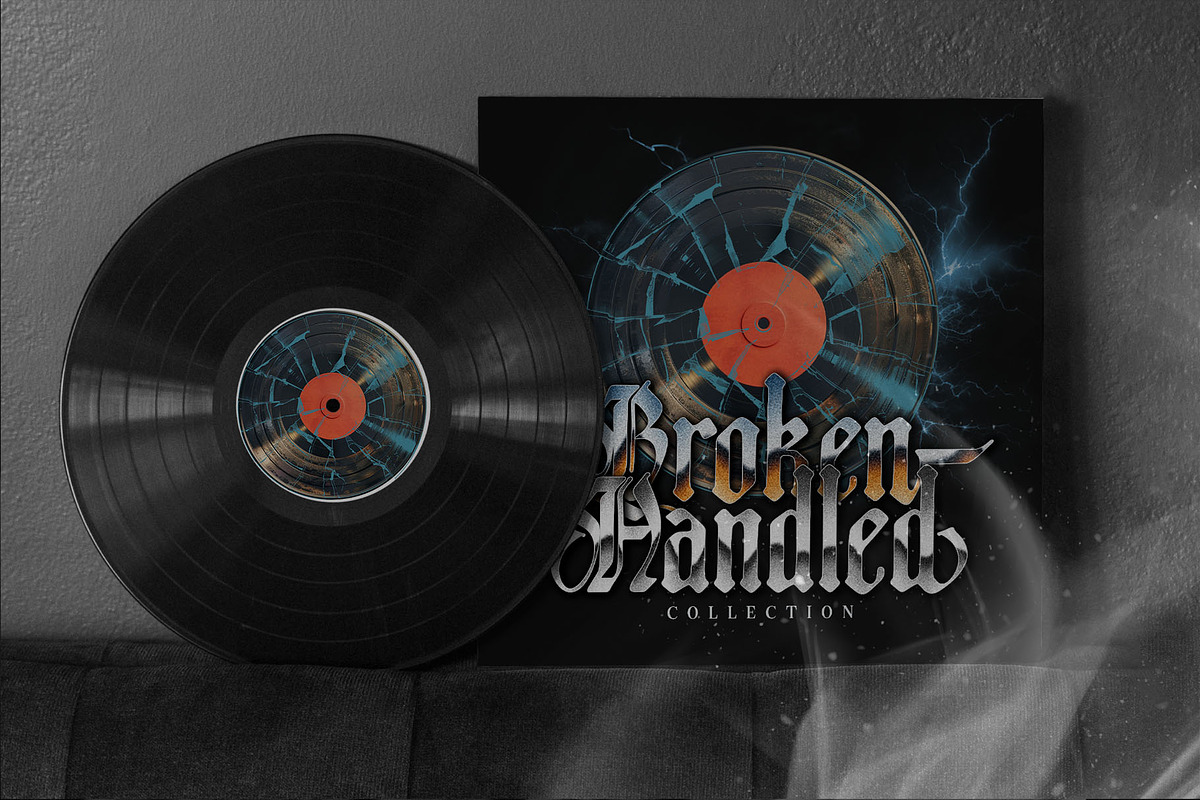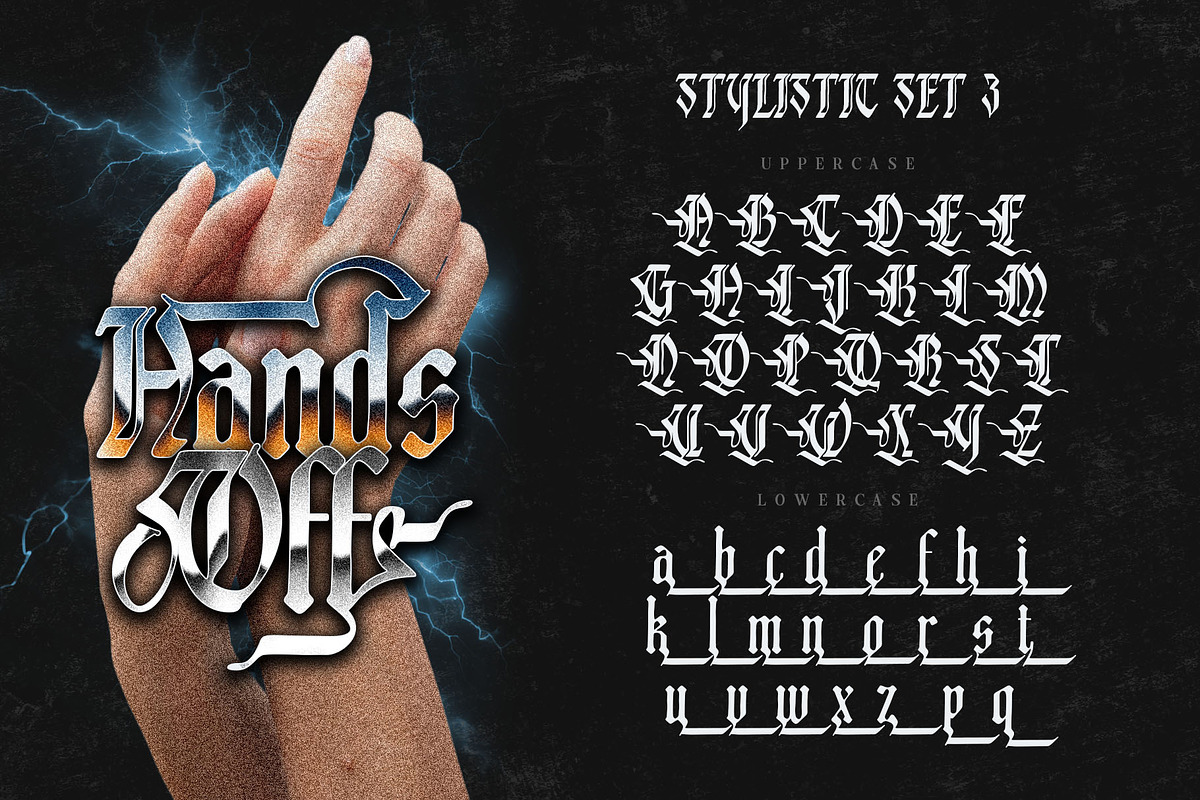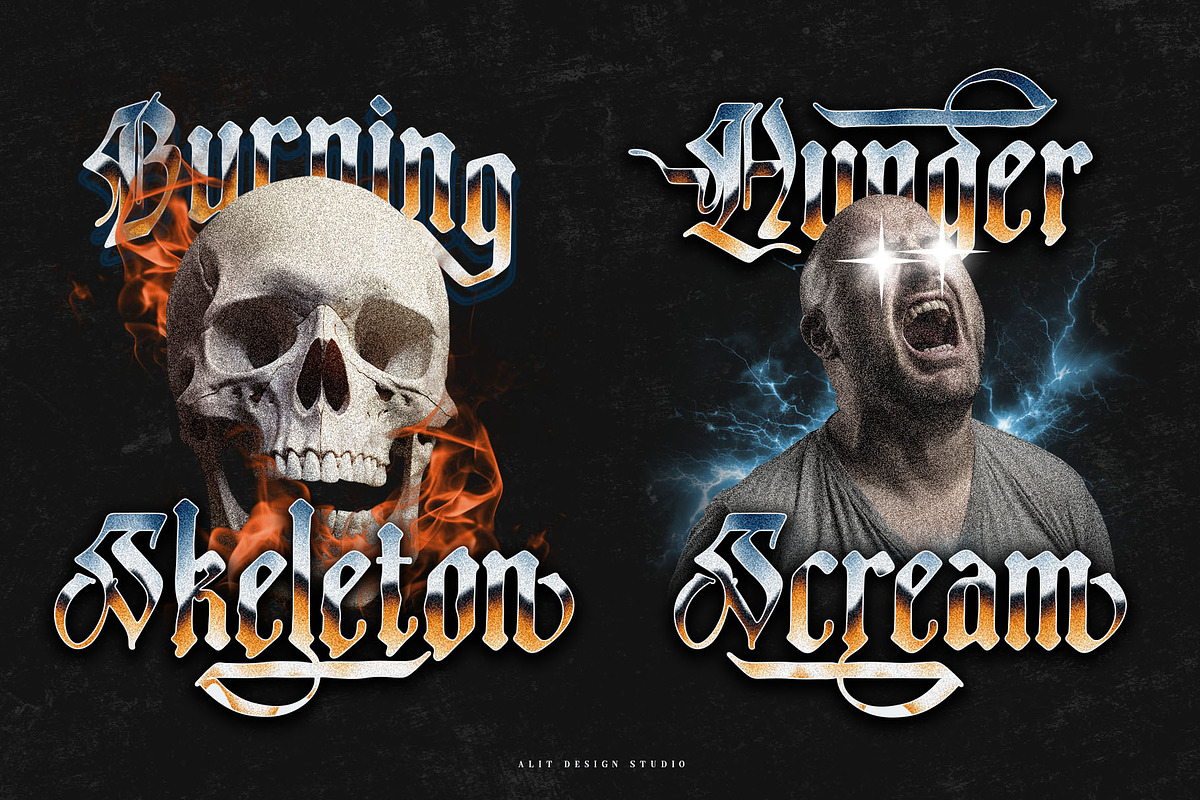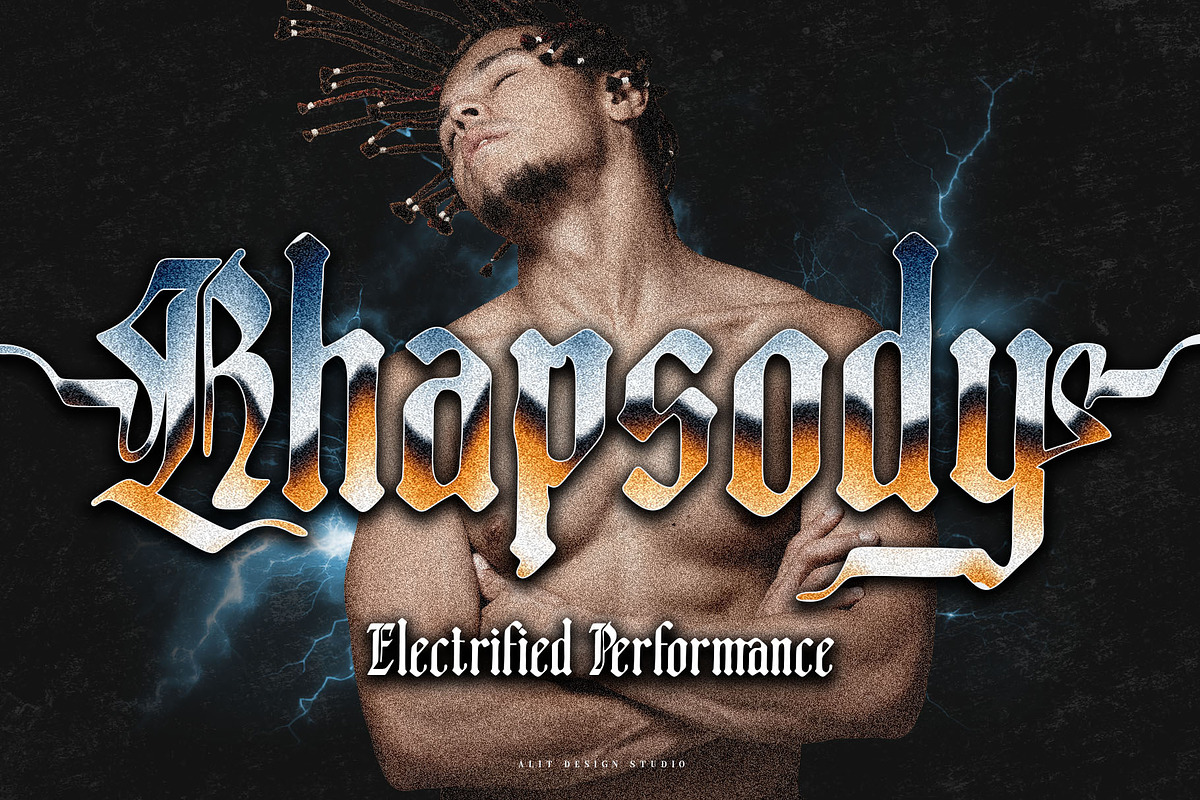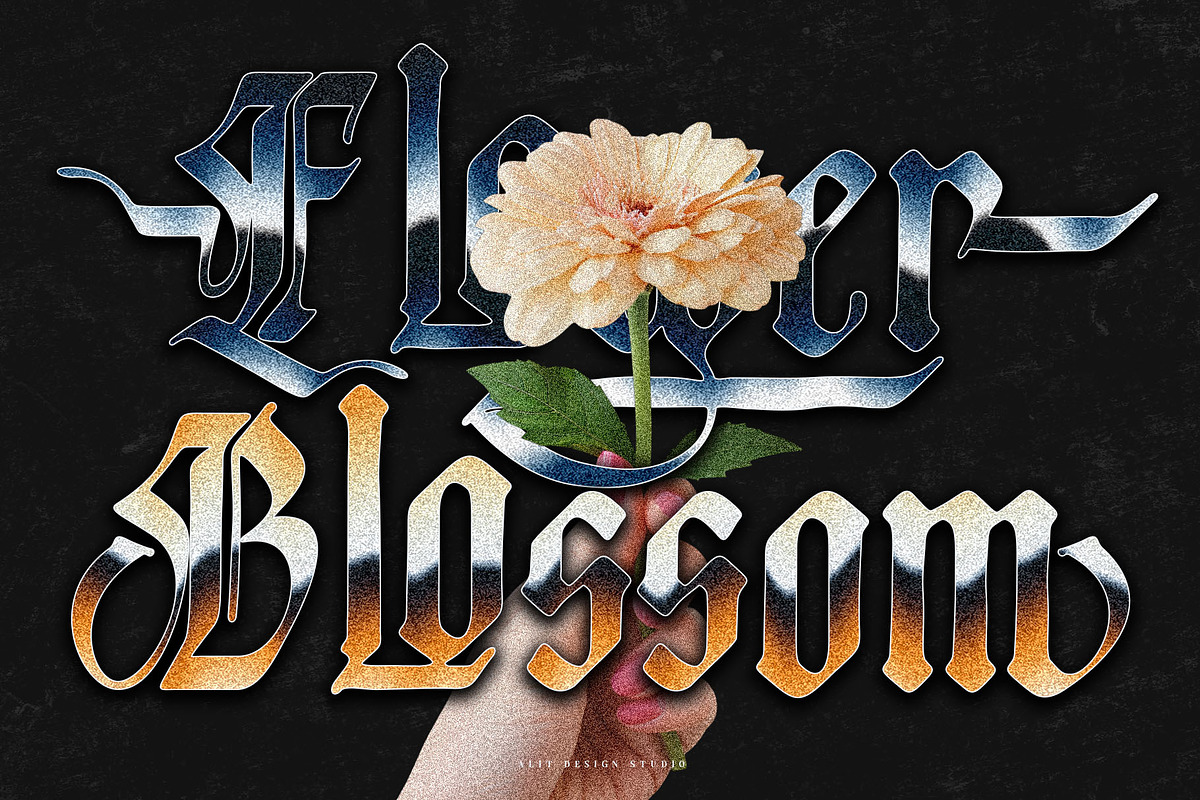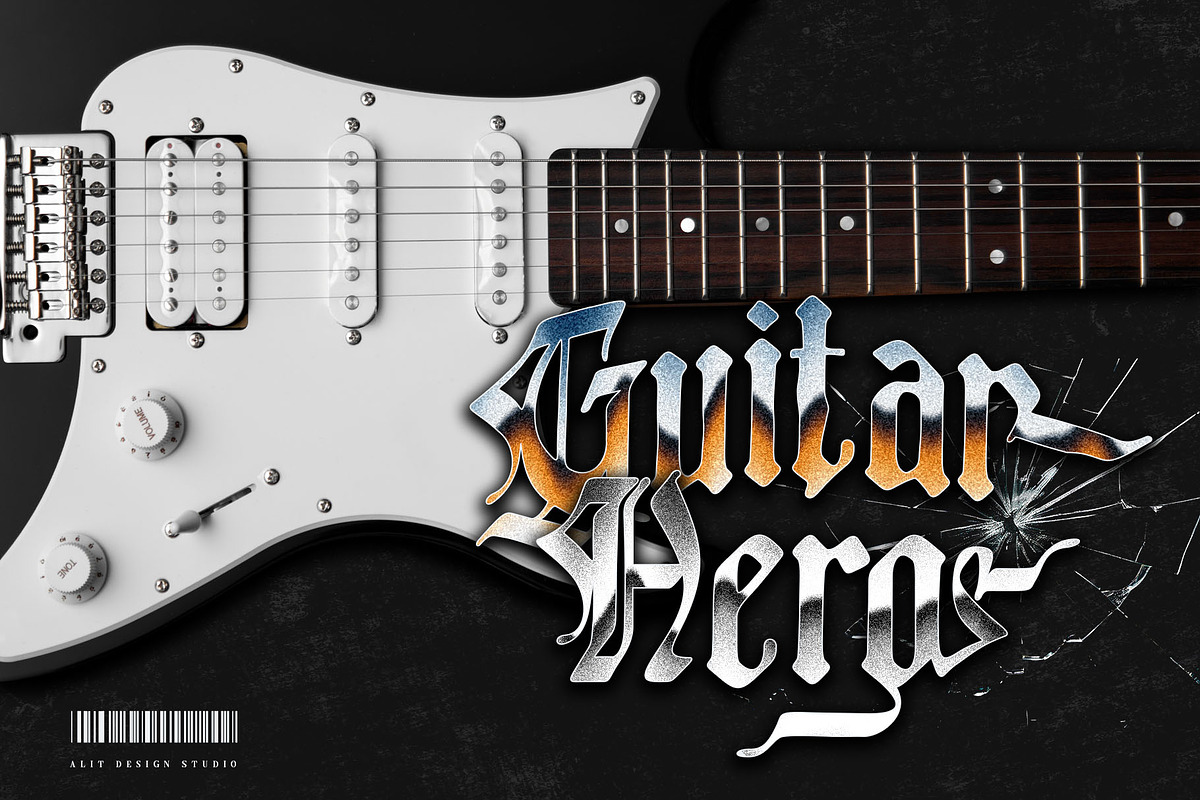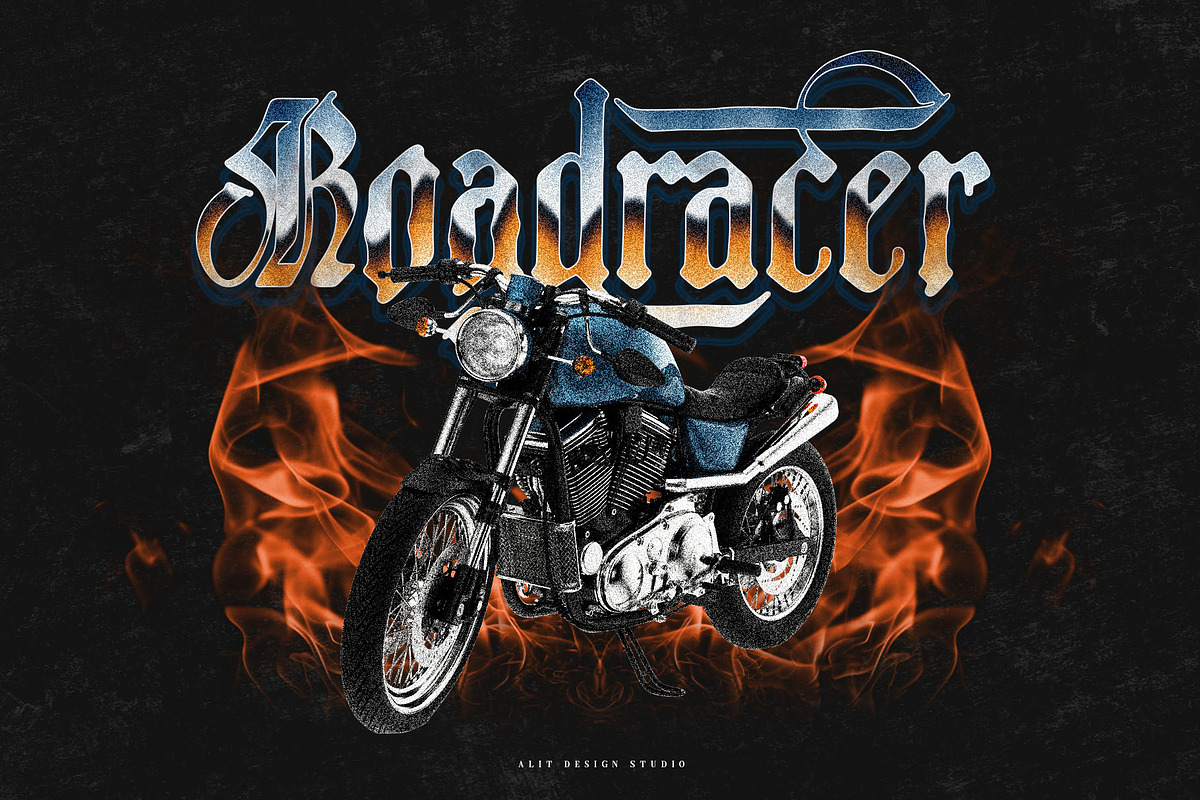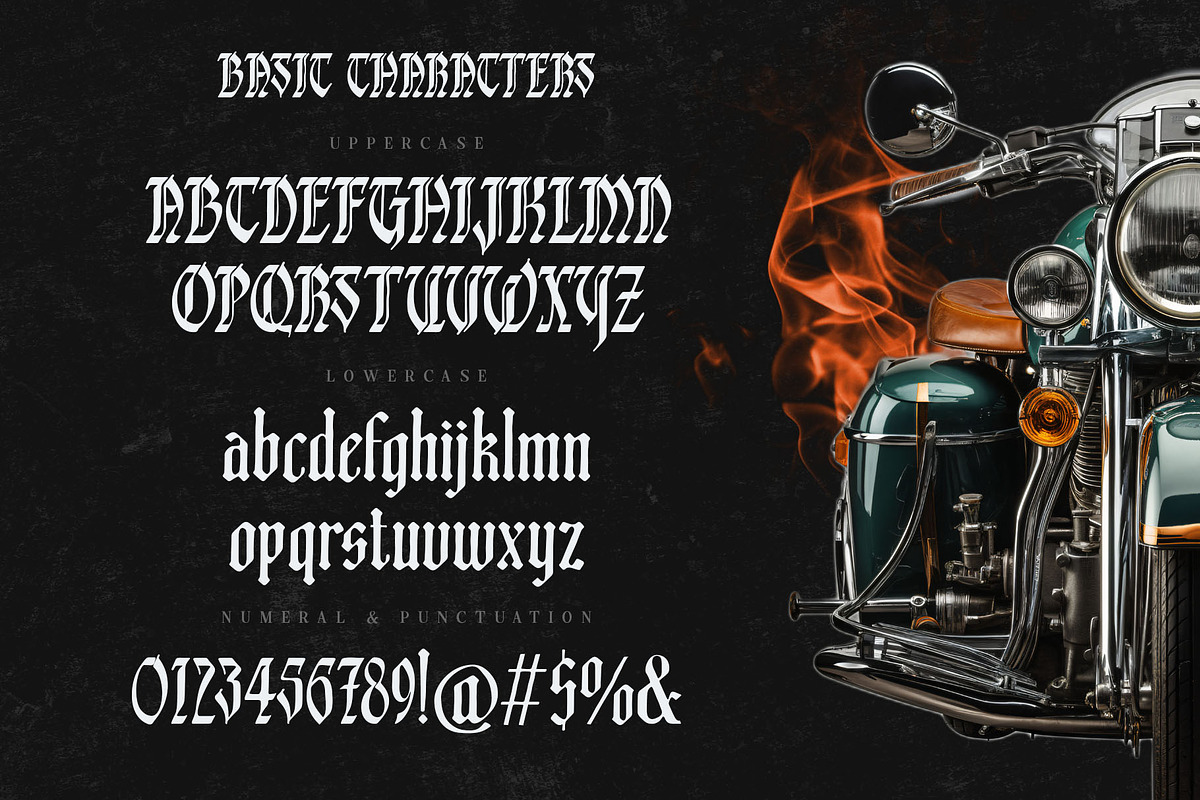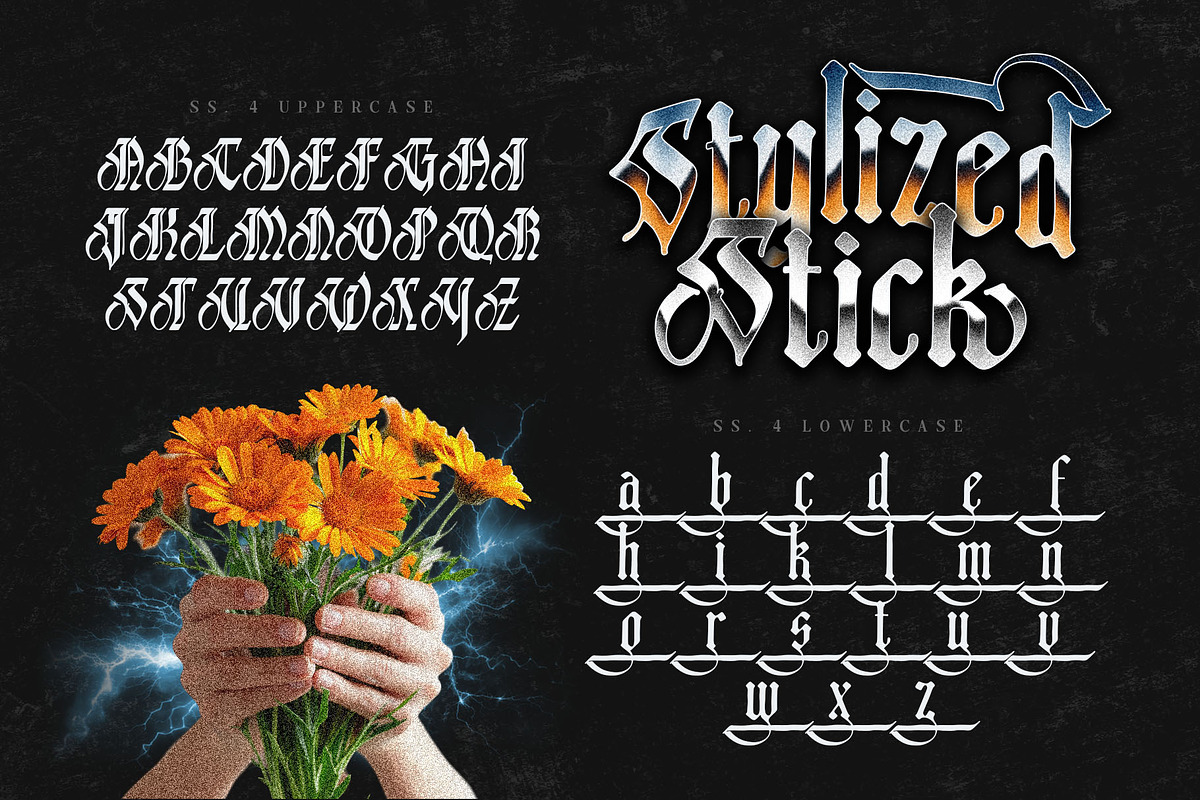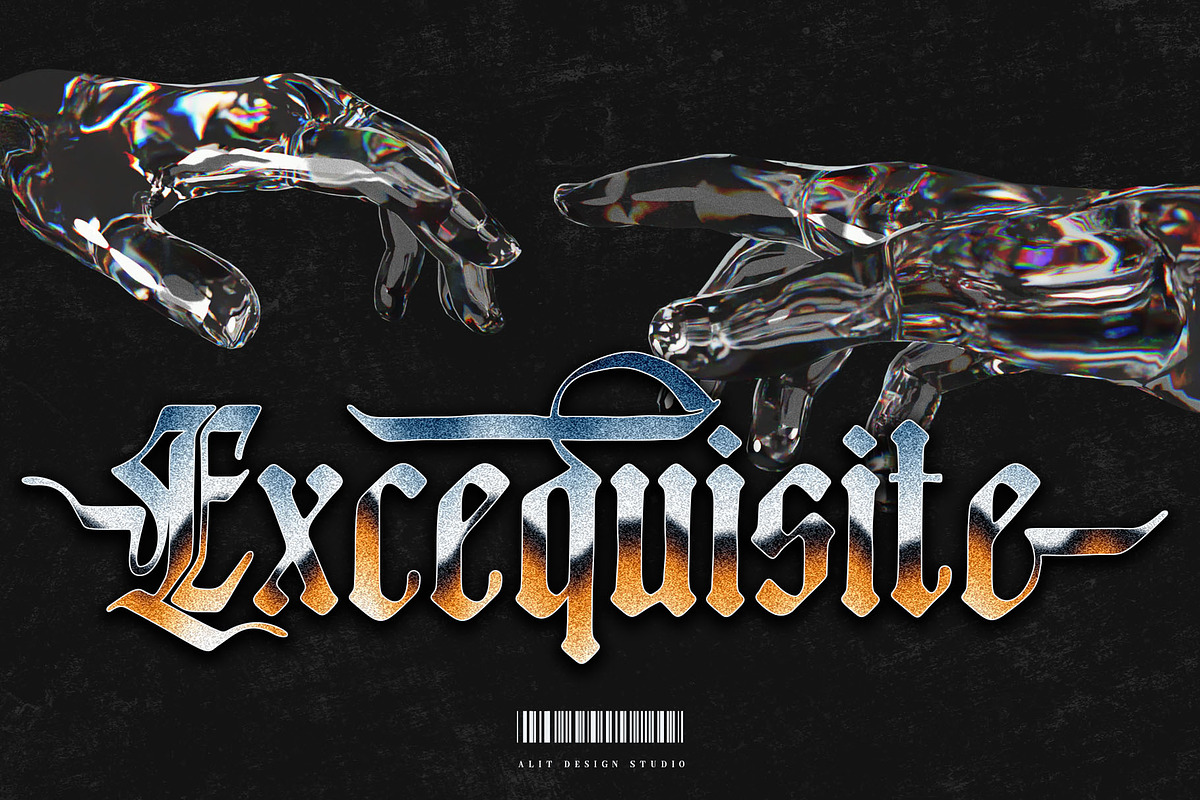
Black Dakota Typeface
Discover the Black Dakota Typeface, a masterful blend of tradition and artistry. Crafted with a nod to vintage aesthetics, this font is a rugged yet refined blackletter that brings an authentic old-world charm to your designs. The rough edges and textured details give Black Dakota a raw, handcrafted feel, perfect for projects that demand a touch of history and depth.
This typeface isn't just about looks—it's packed with functionality. With 811 characters, including a full set of ligatures and an array of elegant swashes, Black Dakota offers unparalleled flexibility and style. Whether you're designing logos, branding materials, posters, or invitations, this font's classic old-style appearance, combined with its rich decorative features, ensures your work will stand out with a timeless, artistic flair.
Embrace the vintage spirit with Black Dakota Typeface, and let your creativity run wild with this bold, character-rich typeface.